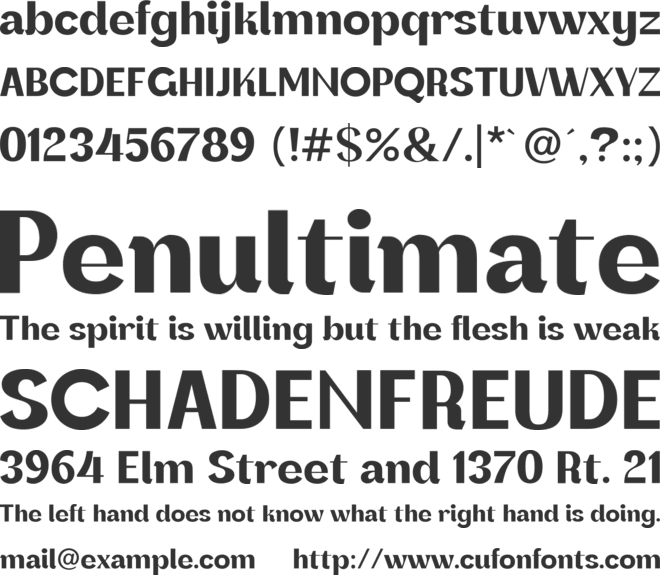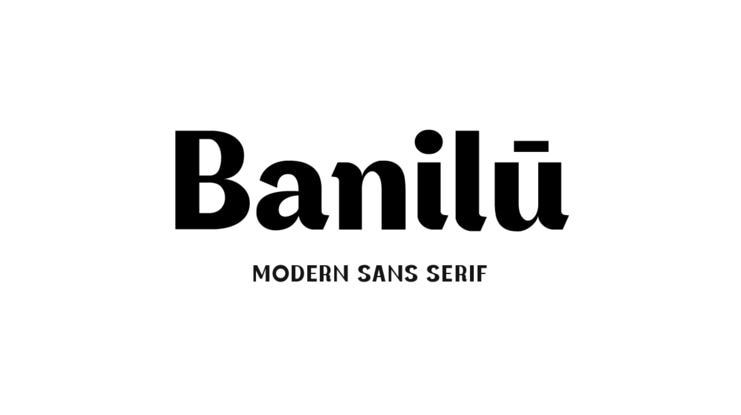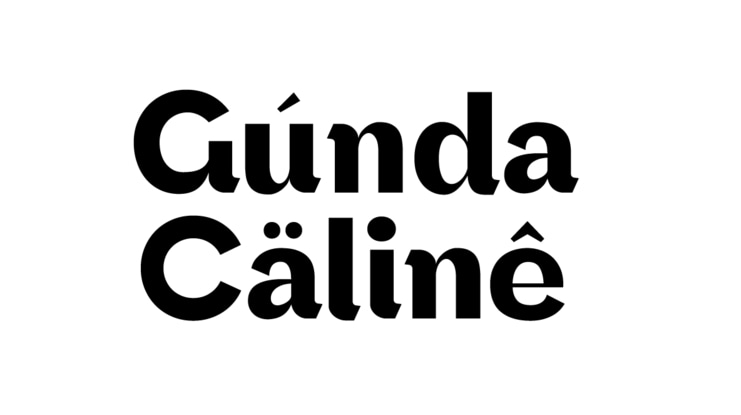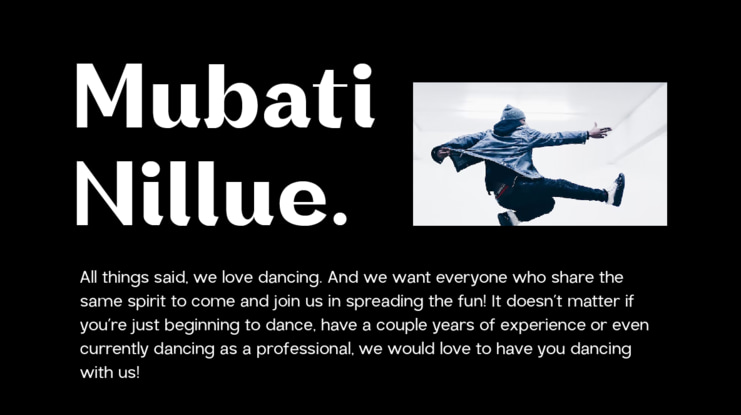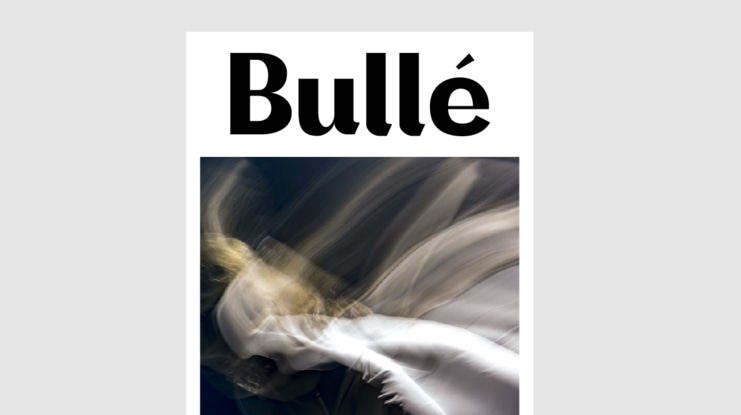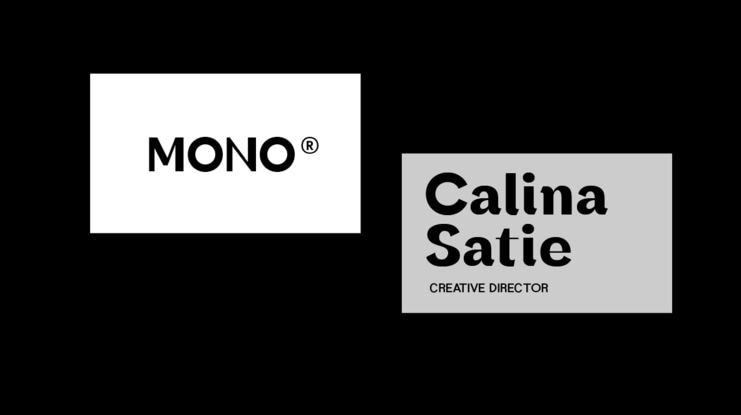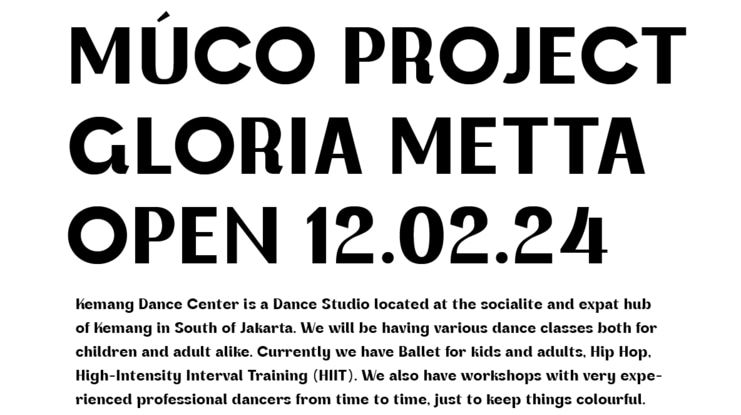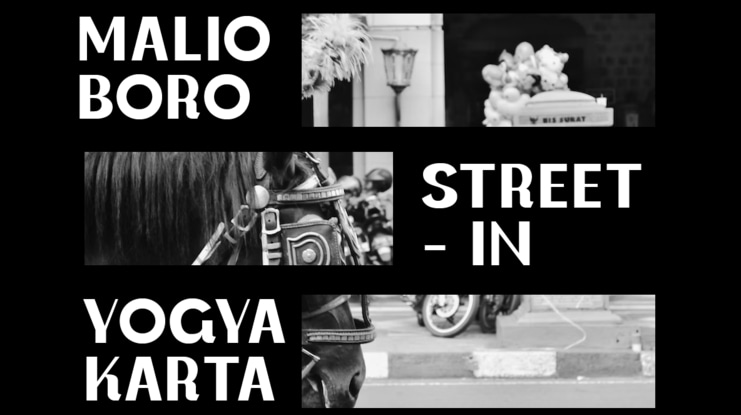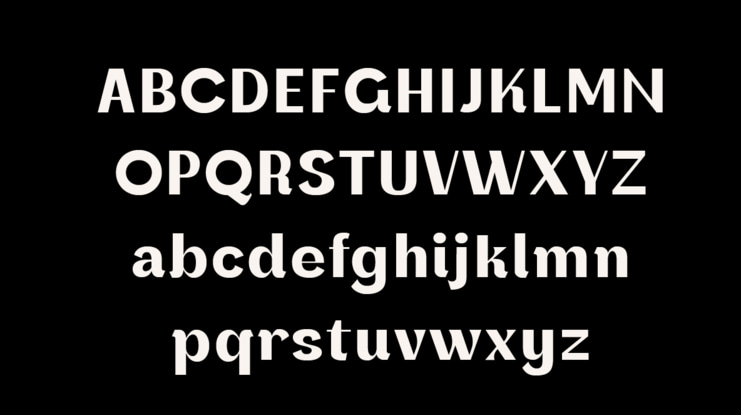
Banilu Font
For a truly eye-catching design, Banilu fonts are perfect for creating captivating branding, cinematic videos, social media titles, and other modern creations. What sets this typeface apart from the others? Its readability paired with its sophistication make it the perfect option. Even with limited skills, simply by using fonts of various sizes and layouts, you can achieve an impressive and memorable design.